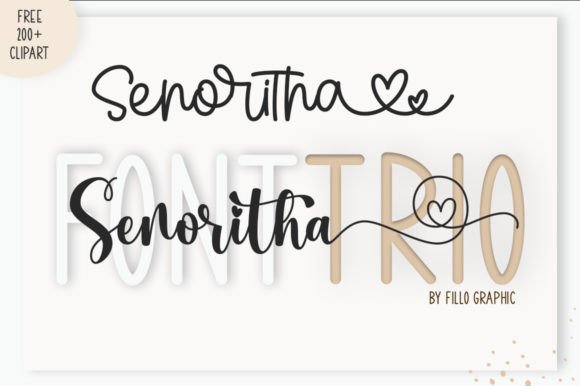
Step into the world of Senoritha, a captivating font family that's sure to leave hearts fluttering. Crafted by the esteemed Fillo Graphic, this trio of fonts – handwritten, script, and sans serif – is a match made in design heaven. Whether you use them together or individually, these fonts bring a touch of elegance and joy to your creative endeavors.
With Senoritha at your fingertips, you'll discover a world of possibilities. Whether you're designing logos, invitations, branding materials, social media graphics, or even heartfelt love letters, this font family will elevate your words into works of art. The handwritten font is brimming with charm and uniqueness, perfect for adding a personal touch to your projects.
The script font, with its graceful curves and flowing lines, exudes elegance and sophistication. It's as if each letter was carefully penned by a master calligrapher, adding a touch of timeless beauty to your designs. And let's not forget the sans serif font, the backbone of this trio. With its clean lines and modern aesthetic, it provides a solid foundation for your designs, creating a harmonious balance between the handwritten and script fonts.
But it's not just about aesthetics with Senoritha. This font family is also incredibly functional. It's PUA encoded, which means you can effortlessly access all glyphs and swashes, adding an extra layer of creativity and flair to your projects. Whether you're a seasoned designer or just starting out, Senoritha empowers you to create designs that speak from the heart.